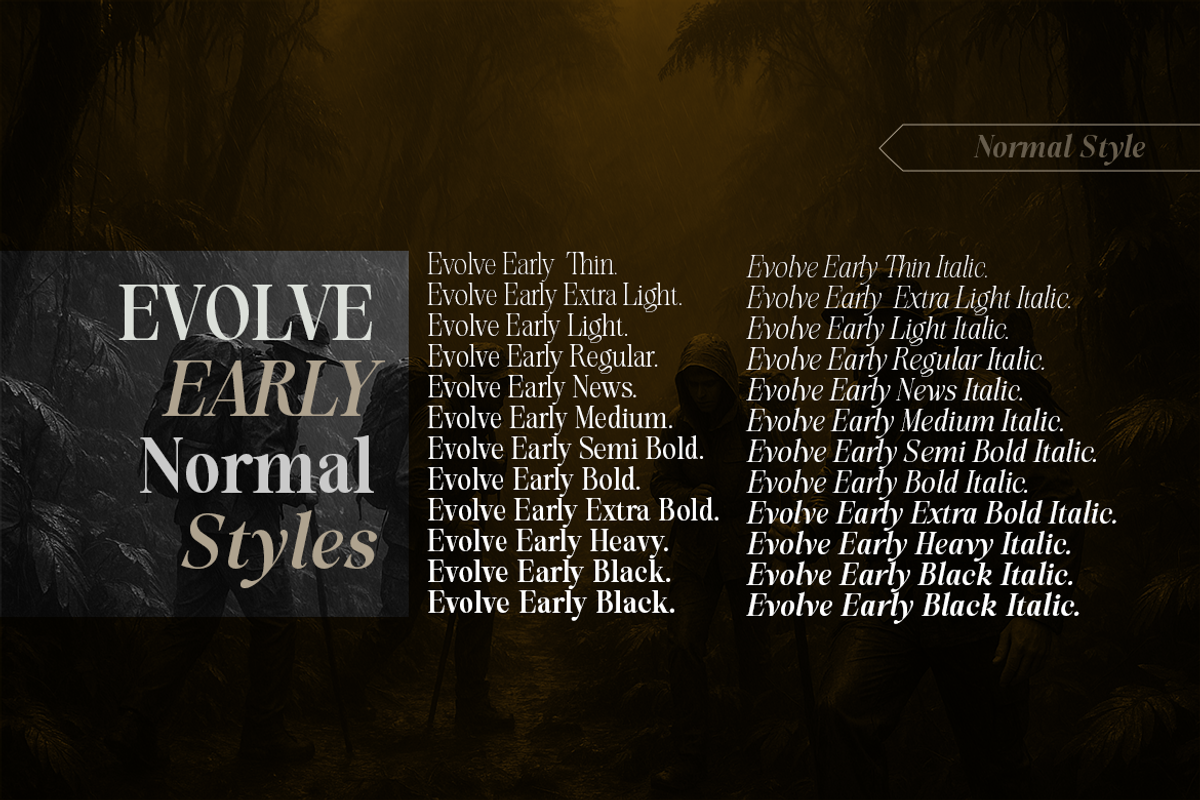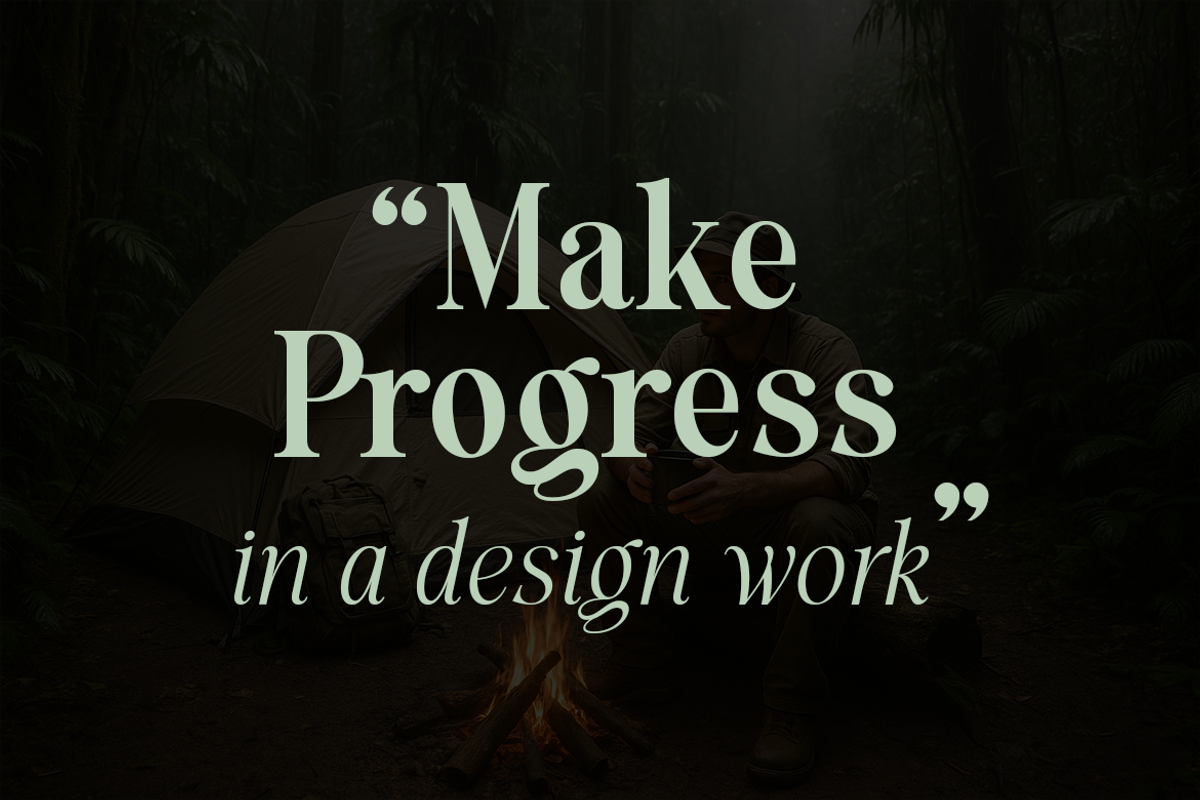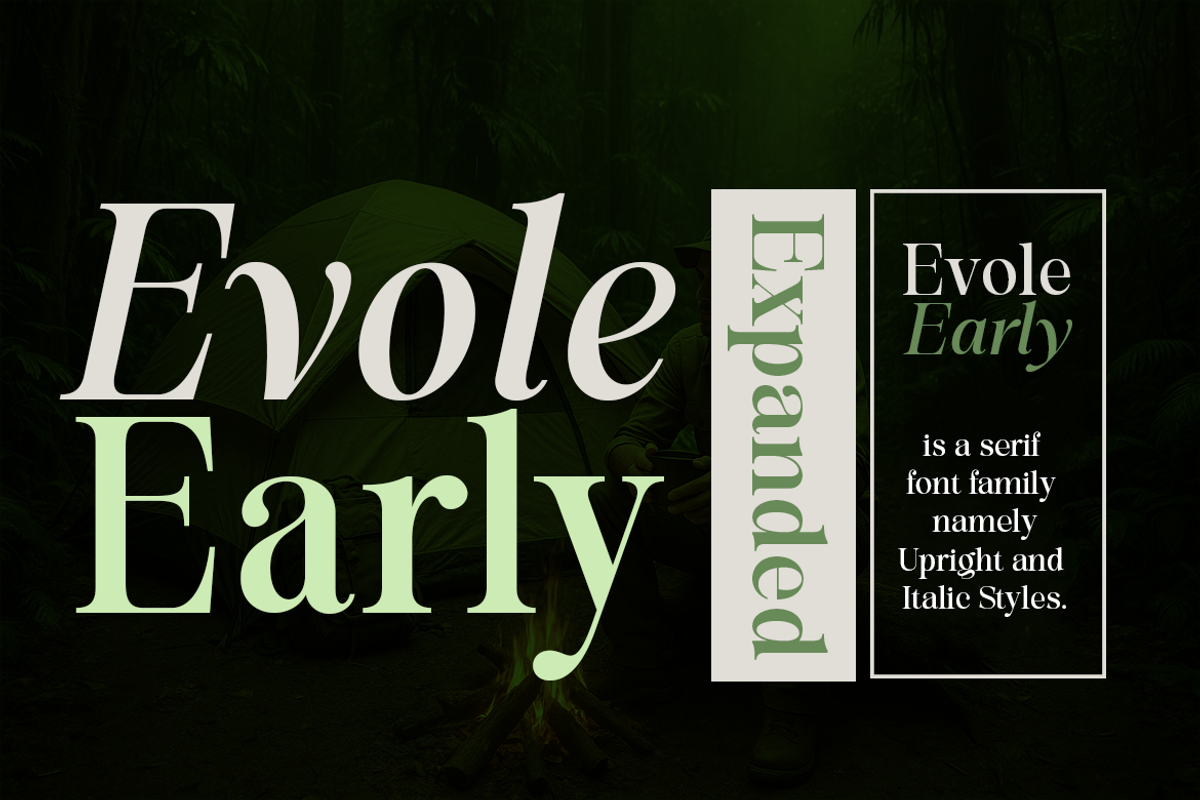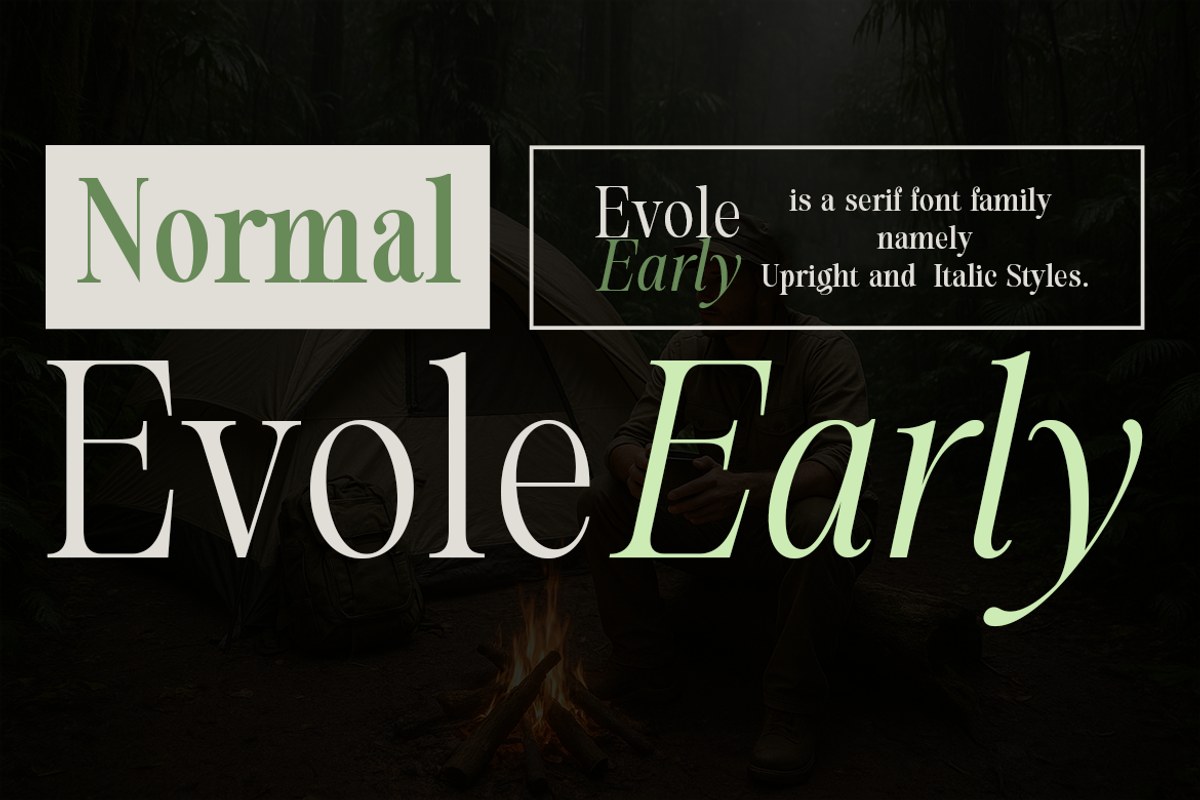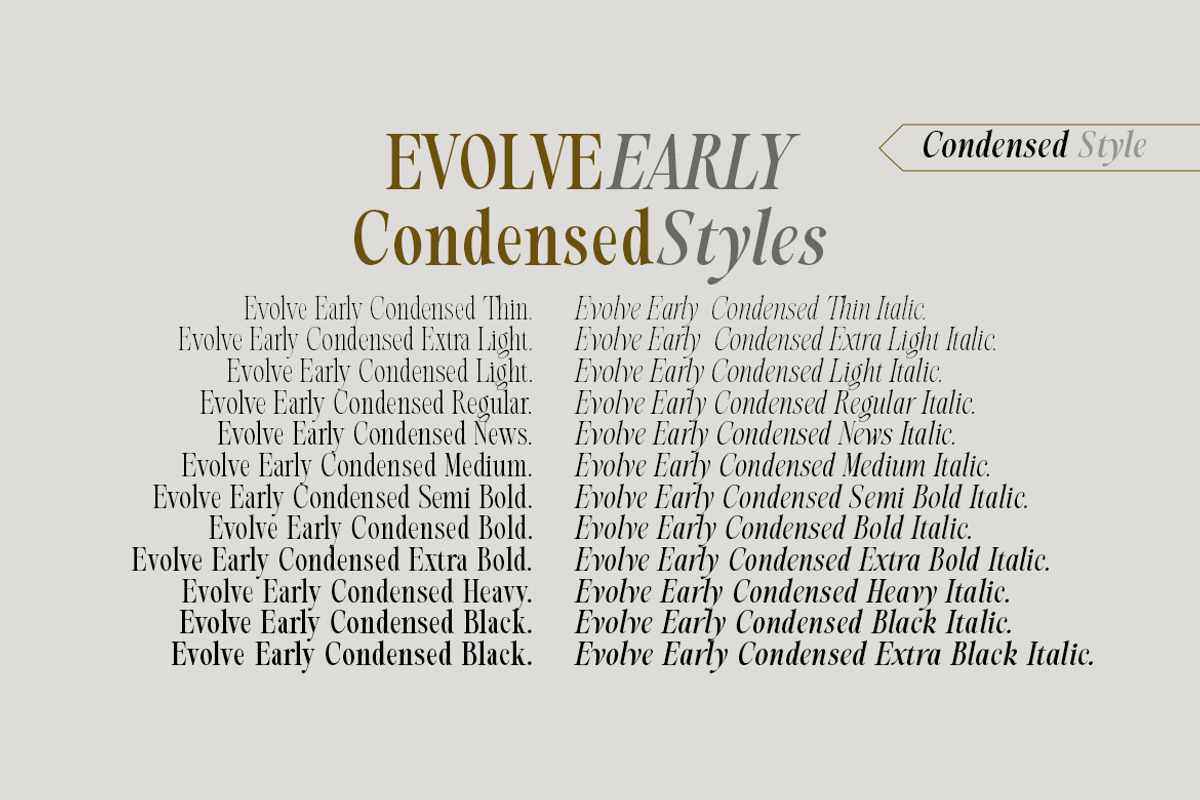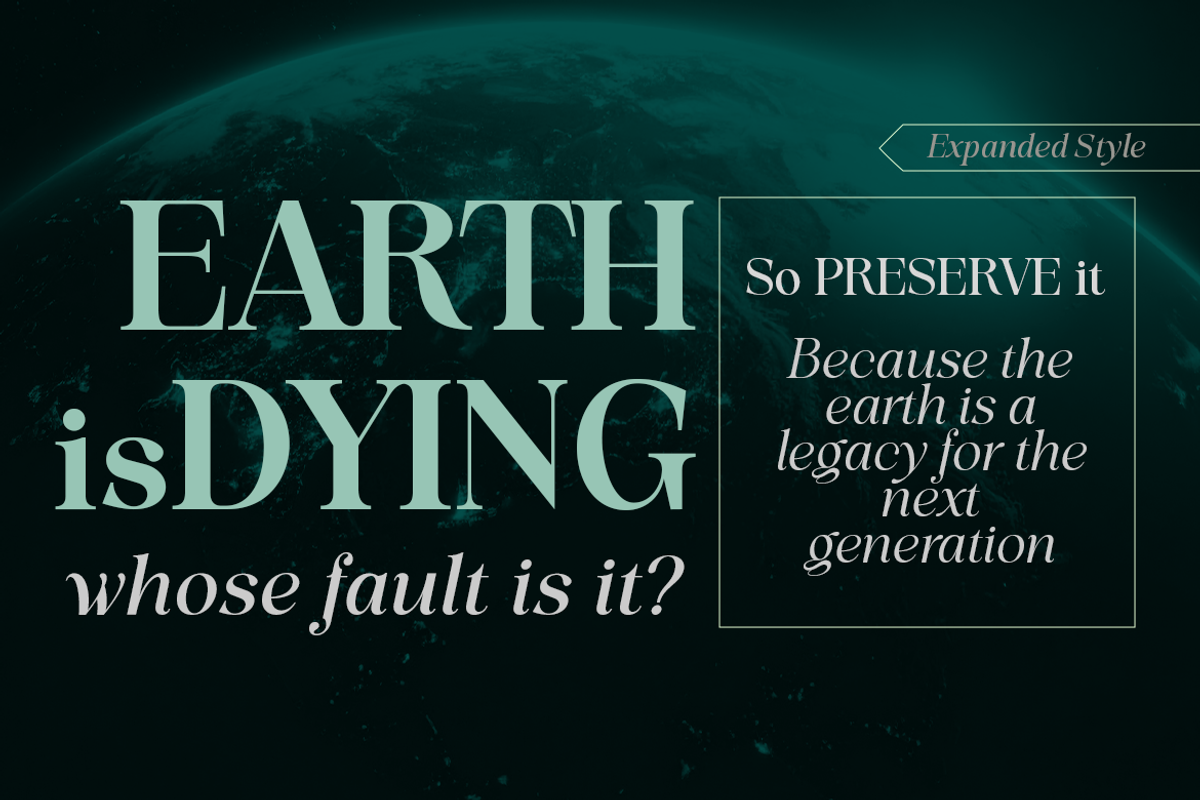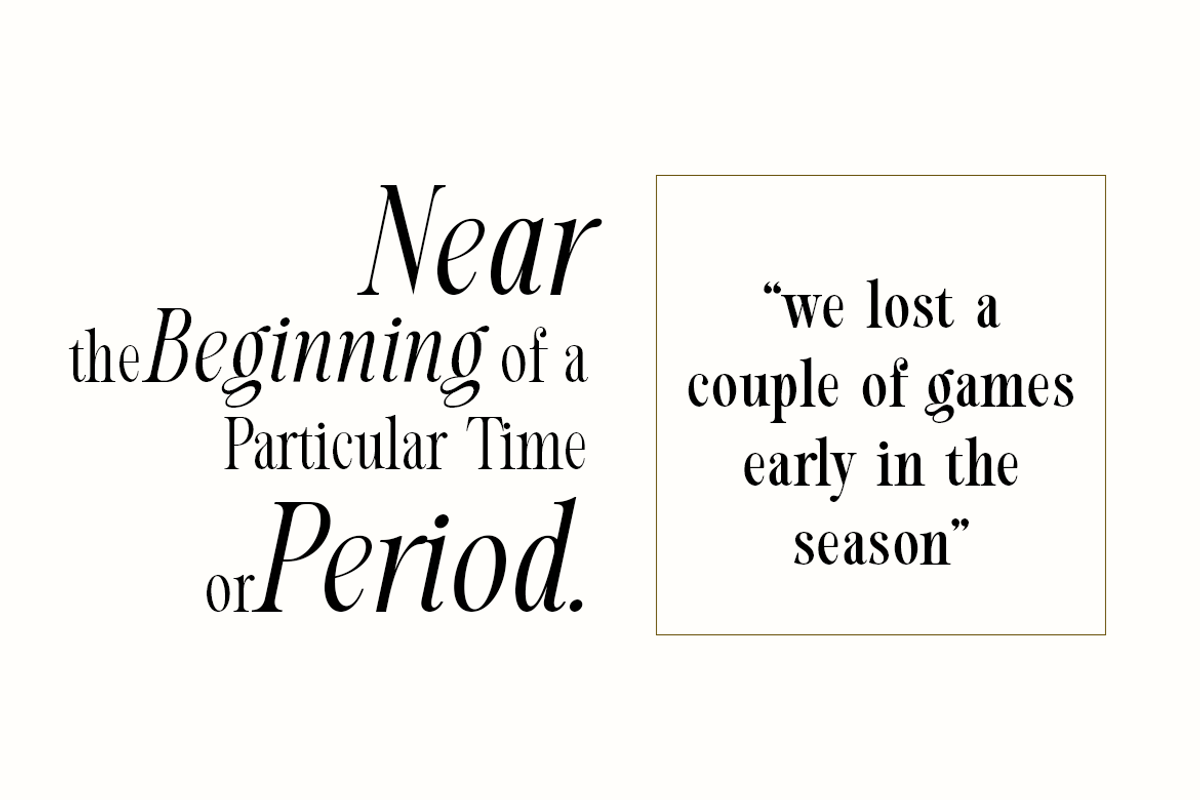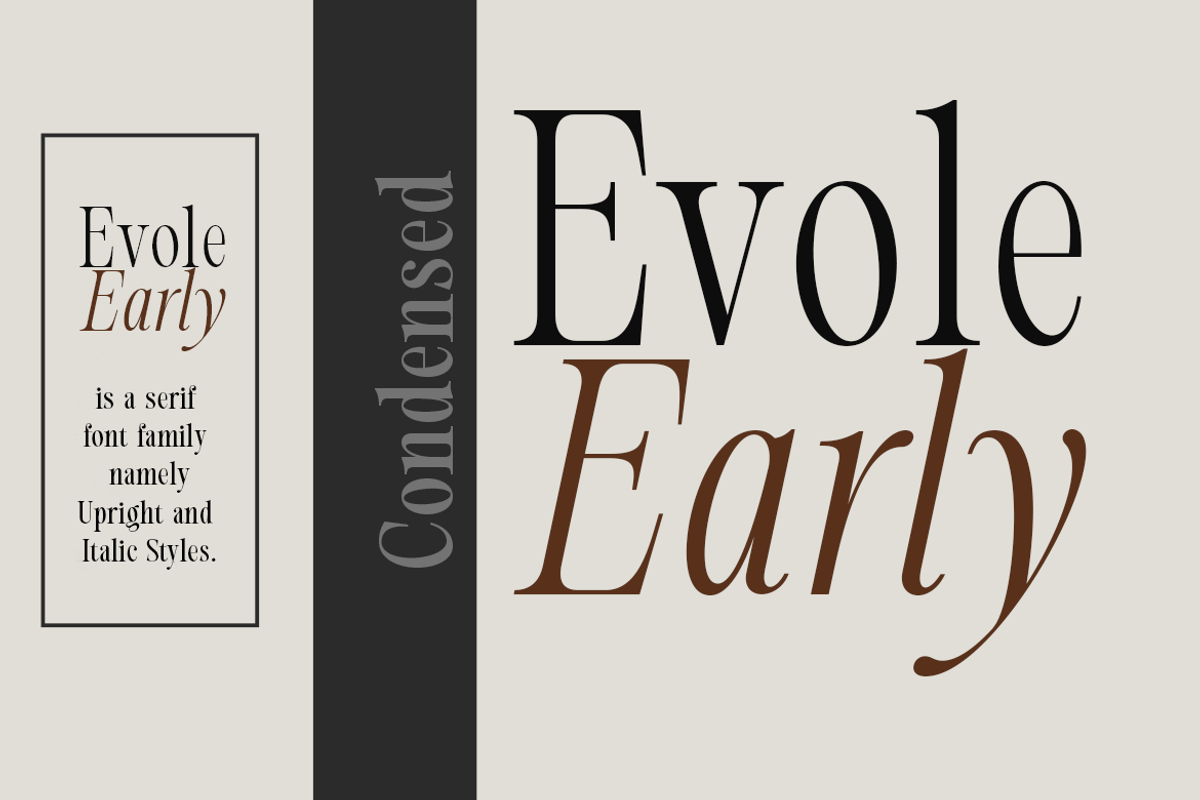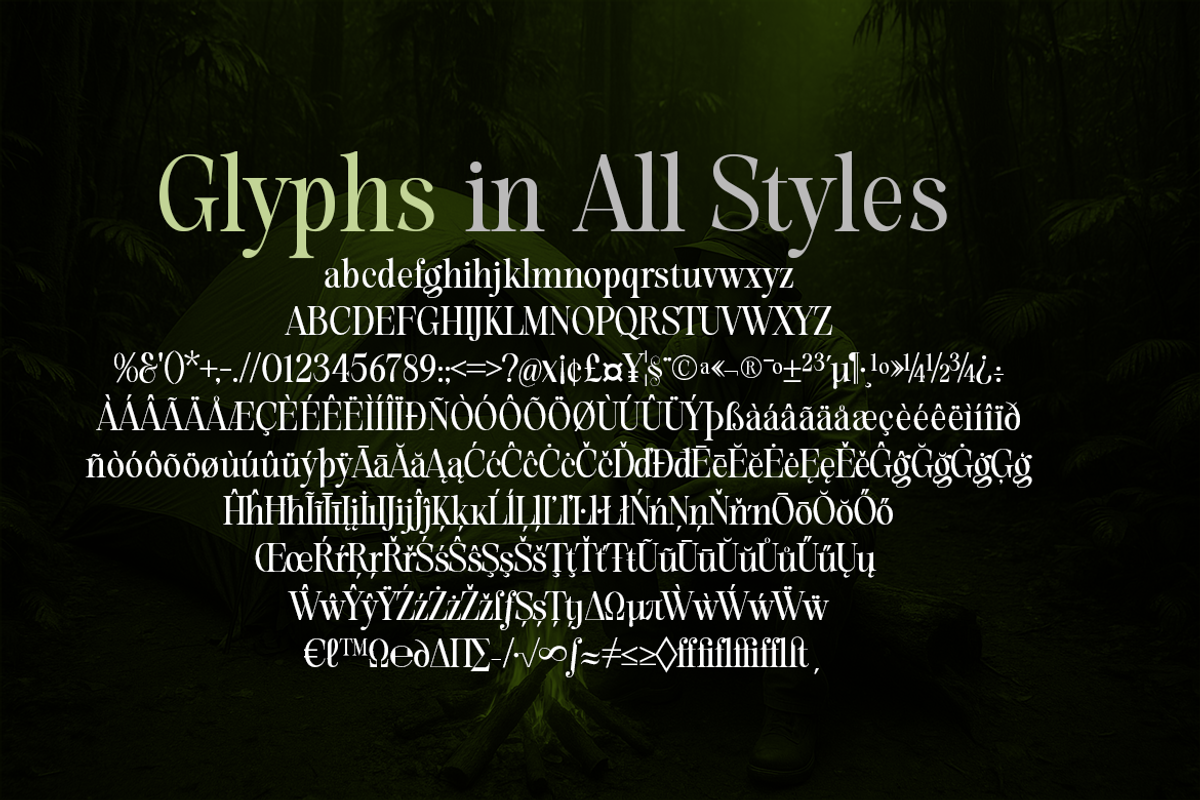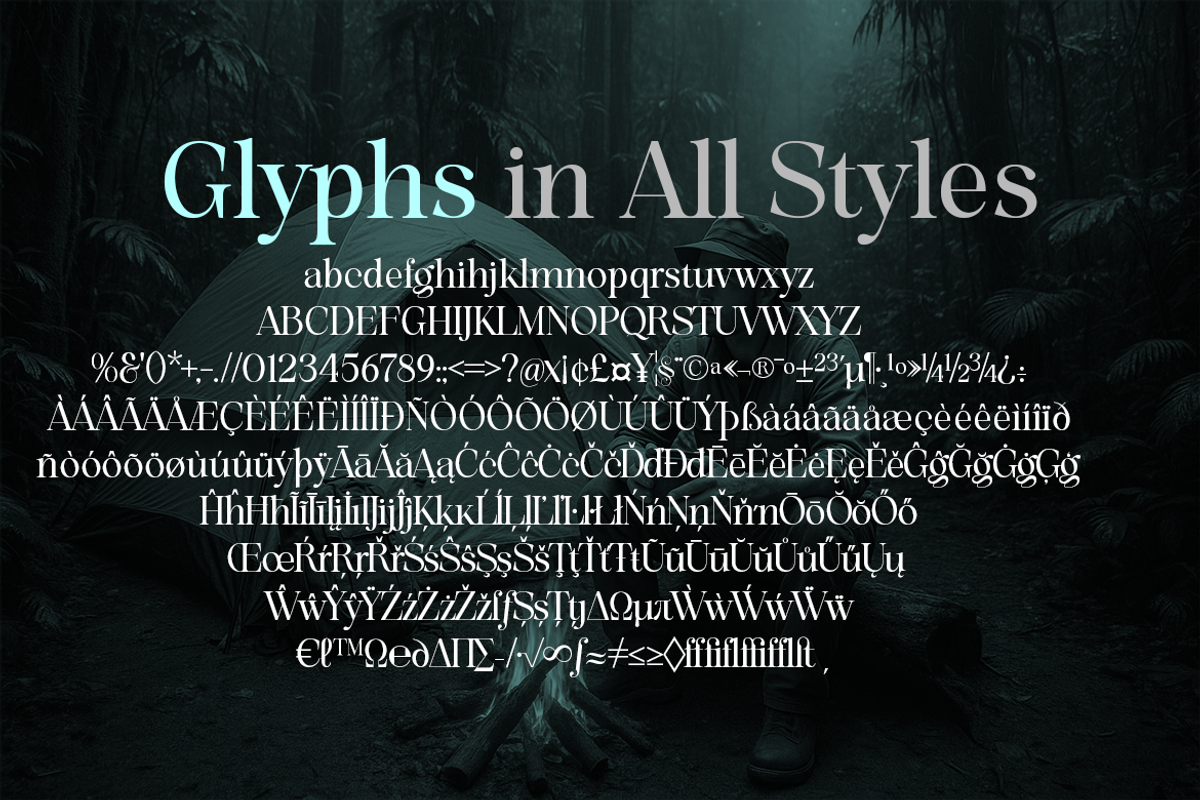
Evolve Early Serif Font Family
- Evolve Early Normal — Serif Font Family (24 Styles)
Evolve Early Normal is a refined serif typeface family designed for timeless editorial elegance and modern brand expression. With 24 styles—from Thin to Extra Black, each paired with a carefully crafted italic—this family provides the perfect balance of tradition, clarity, and contemporary sophistication.
Built on classic serif proportions with smooth curves and graceful contrast, Evolve Early Normal delivers exceptional readability for long-form text, while its heavier weights bring dramatic presence to headlines and identity systems. Whether used for books, magazines, luxury branding, or digital publishing, this family adapts effortlessly to any design environment.
Styles Included: 12 Uprights (Thin → Extra Black) 12 Italics (Thin Italic → Extra Black Italic)
A versatile serif solution for designers who need a complete, polished, and professional typographic toolkit.
- Evolve Early Expanded — Wide Serif Font Family (24 Styles)
Evolve Early Expanded is a wide, expressive serif family created to make a bold and luxurious visual statement. Featuring 24 styles—12 uprights and 12 italics from Thin to Extra Black—this collection offers dramatic spacing, confident proportions, and a high-impact presence ideal for premium branding.
The expanded letterforms add a sense of openness, elegance, and grandeur, making it perfect for editorial headers, fashion layouts, upscale packaging, and statement logos. Its italics introduce sophisticated motion while maintaining excellent legibility.
Styles Included: 12 Uprights (Thin → Extra Black) 12 Italics (Thin Italic → Extra Black Italic)
A premium serif family designed for brands and designers seeking a wide, distinguished, and modern editorial aesthetic.
- Evolve Early Condensed — Narrow Serif Font Family (24 Styles)
Evolve Early Condensed is a compact, space-efficient serif family crafted for strong, dynamic, and high-density typographic layouts. With 24 styles—from Thin to Extra Black, each with a dedicated italic—it excels in posters, magazine systems, dramatic titles, and tight editorial grids.
Its narrow forms increase vertical energy and create a powerful visual rhythm, allowing designers to deliver impact even in limited space. The contrast is elegant yet controlled, making it suitable for both expressive display work and compact text settings.
Styles Included: 12 Uprights (Thin → Extra Black) 12 Italics (Thin Italic → Extra Black Italic)
A bold and efficient serif family designed for designers who need maximum impact in minimal space.